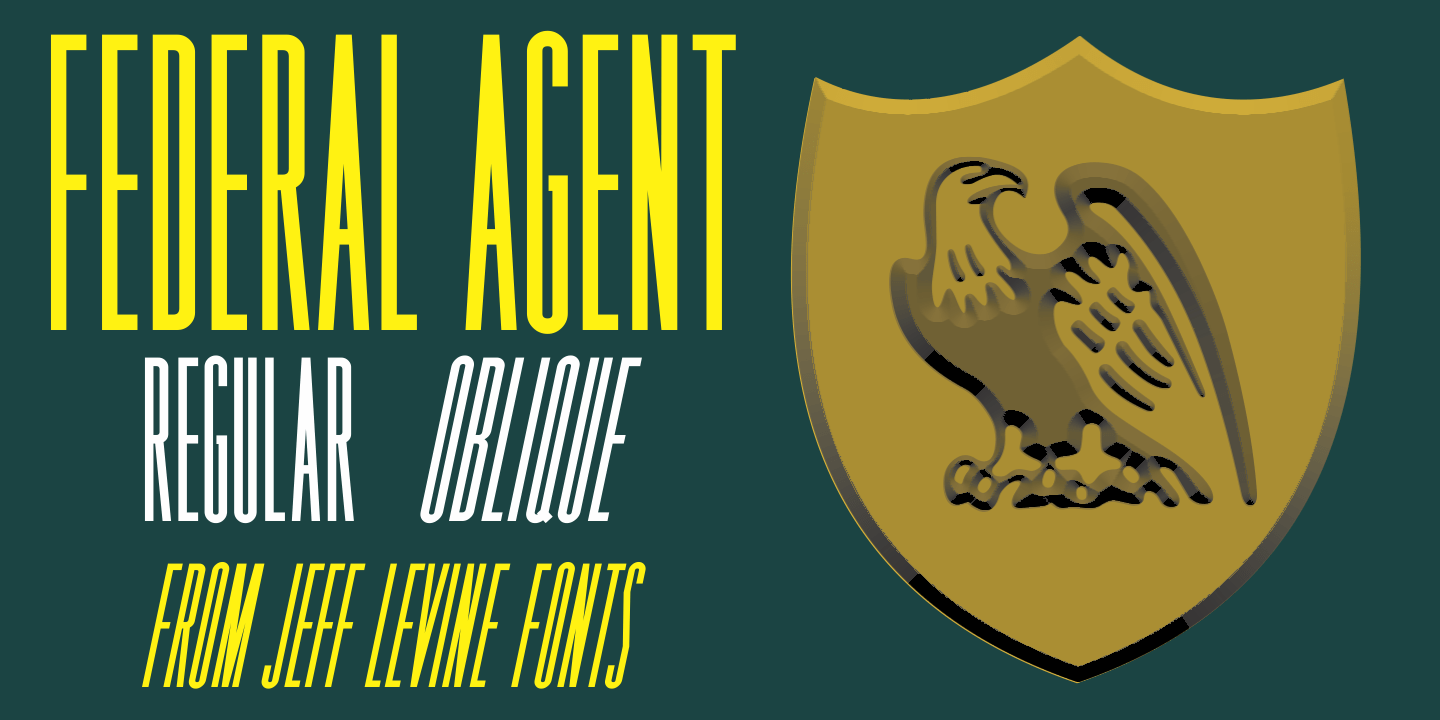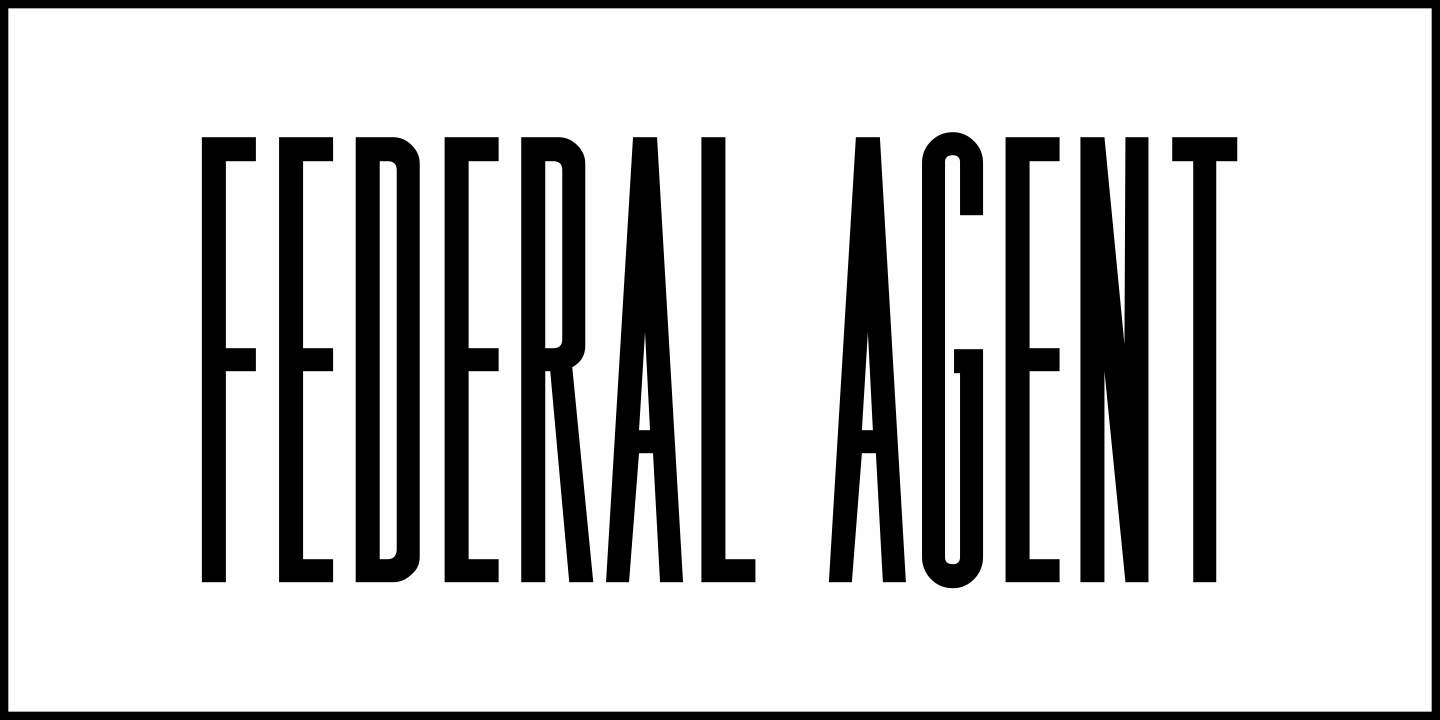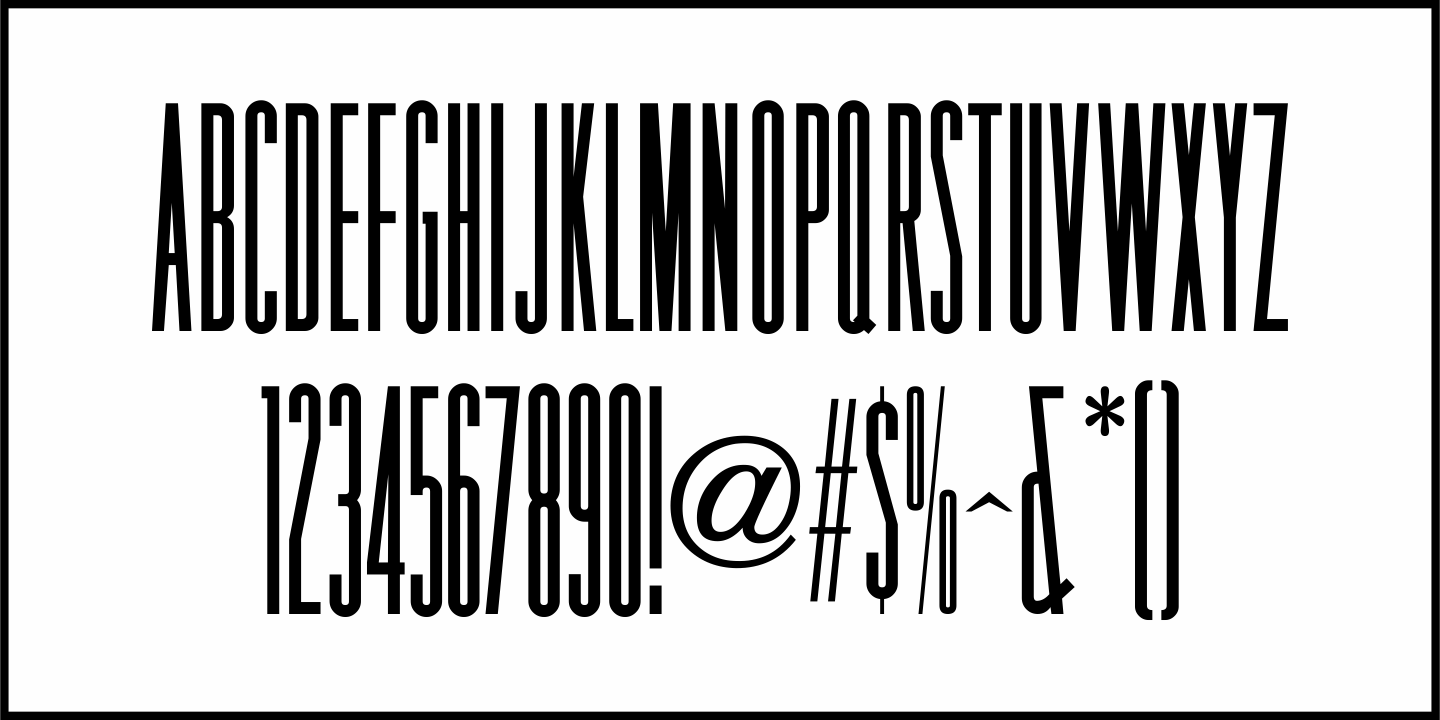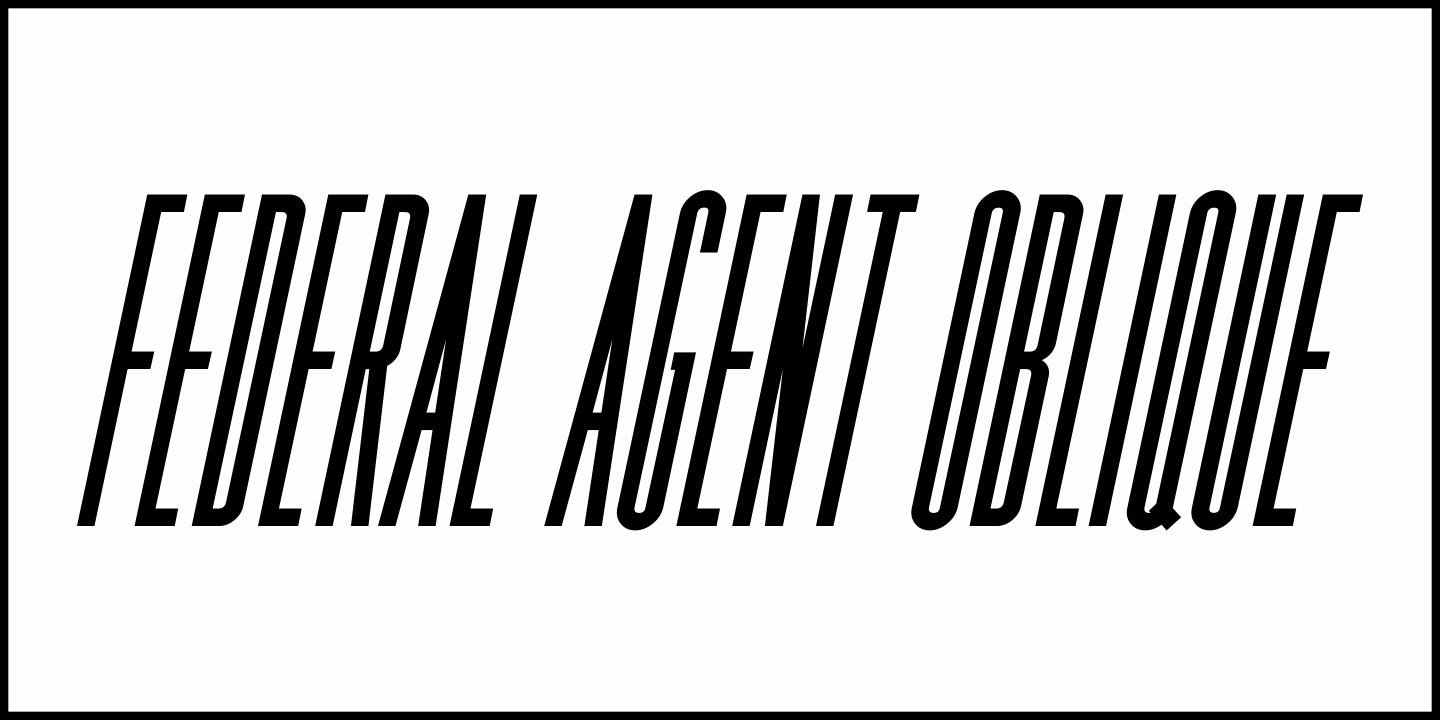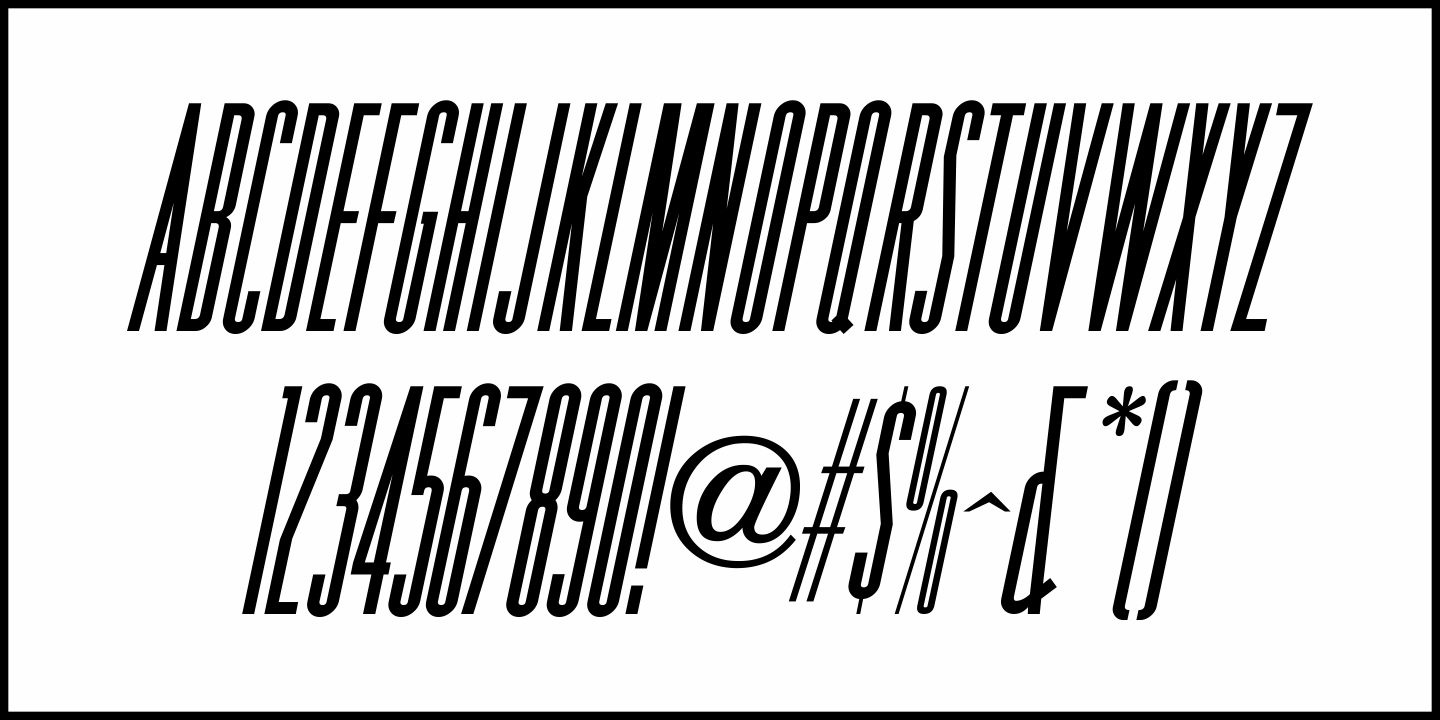
Federal Agent
In the 1959 premiere season of “The Untouchables” (based on the book by Eliot Ness and Oscar Fraley) the opening title jumps off of the cover of the book and stretches out into tall, extremely condensed lettering.
This inspired the type font Federal Agent JNL, which is available in both regular and oblique versions.